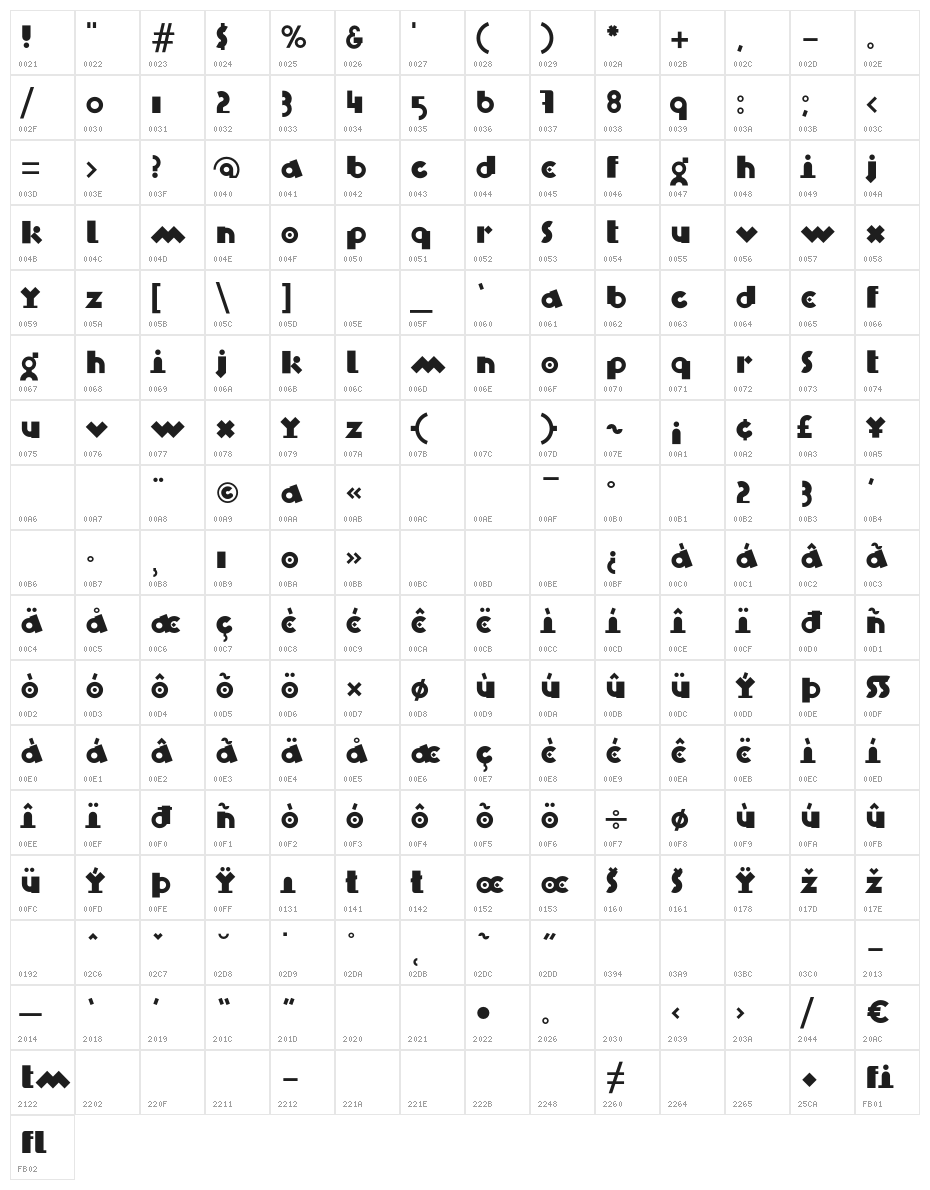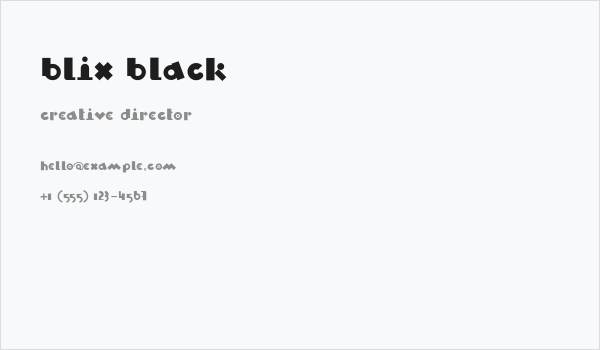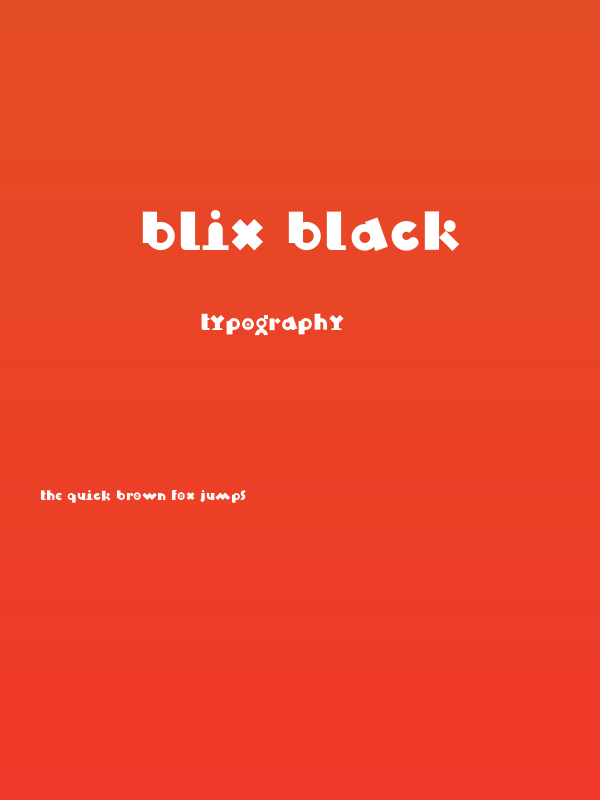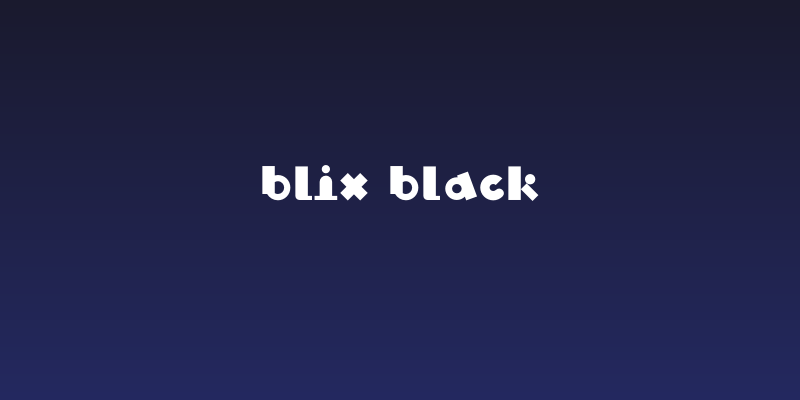
Blix Black Font
Blix Black Description
This font features bold, geometric shapes with a strong emphasis on angular forms and sharp edges. The characters are designed with a modern, playful aesthetic, incorporating unique elements such as circular cutouts and triangular serifs. The uppercase and lowercase letters maintain a consistent style, with a focus on symmetry and balance. Numbers and special characters are crafted to match the boldness and distinctiveness of the alphabet, making them stand out in any design. The overall appearance is striking and memorable, suitable for projects that require a bold statement.
| Proposed Projects | Ideal for branding, posters, headlines, and any design that requires a bold, modern touch. |